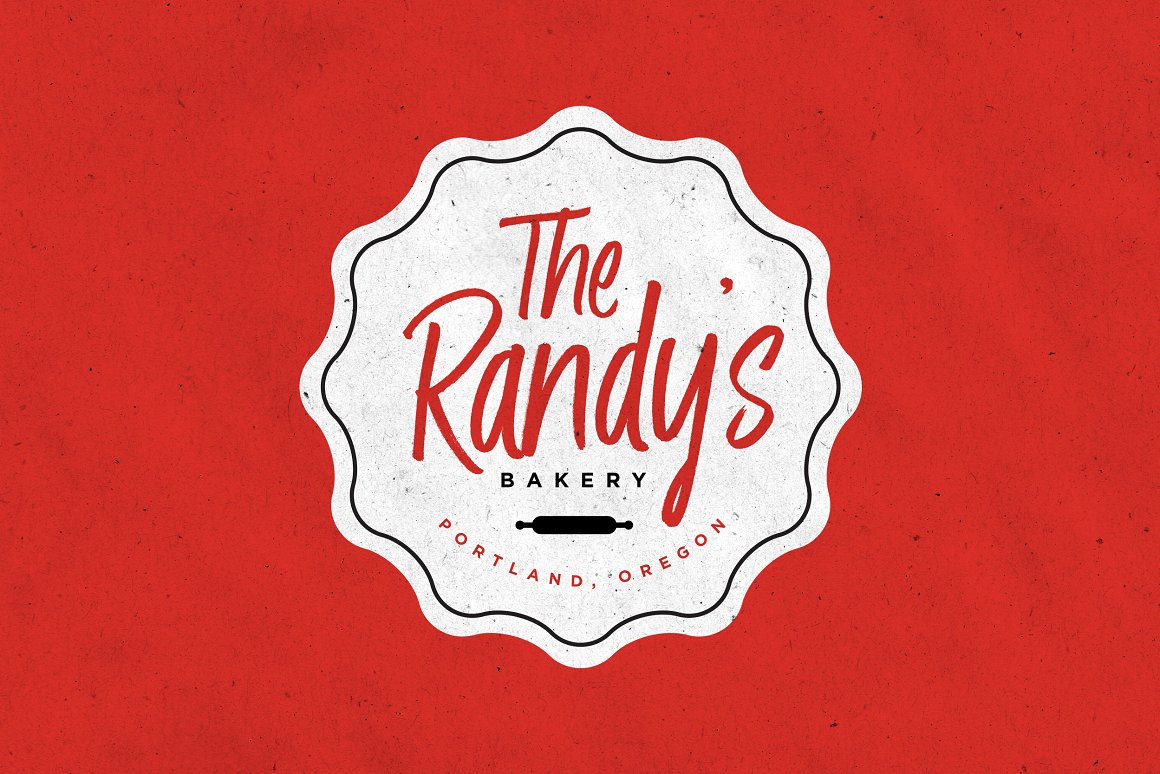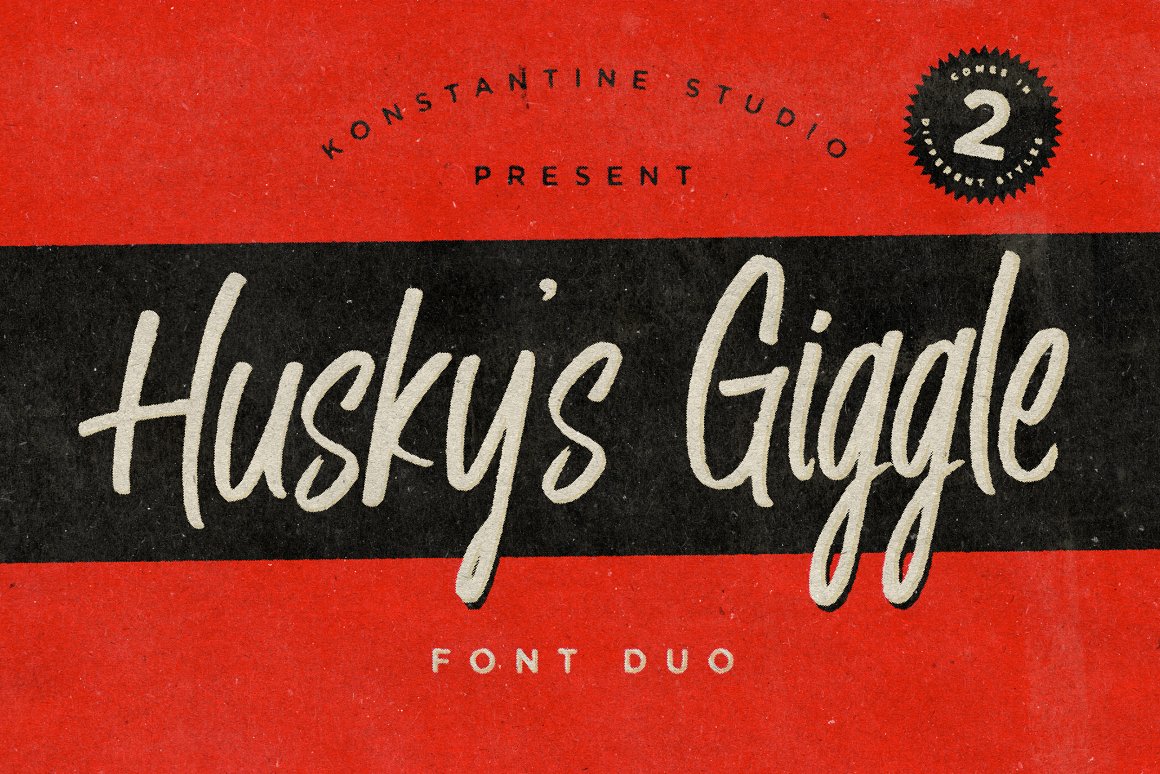
Husky Giggle
husky giggle handwriting font
Husky Giggle – Handwriting Font
Howdy! I’m the Husky Giggle a duo fonts, scratched from the handwritten brush pen and ink. I love to put on the vintage casual logo or branding, food and beverages, anytime you need an casual handwriting bold feels. I’m the one that can make you smile for a sec by choosing 🙂